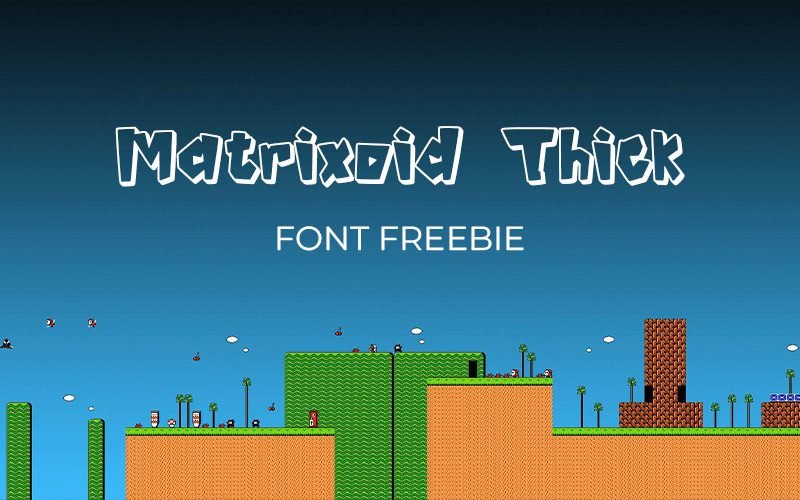
Matrixoid Thick Font Freebie
Are you working on multiple design projects that require a fun & attractive look?
Searching for the perfect font can be a daunting task for a designer. Therefore, DealFuel has brought you a Matrixoid Thick Font to create fun.
Carefully handpicked Playful font belongs to the “Matrixoid” Typeface.
Use it for social media posts, banners, thumbnails, cards & invites, and more! You can also use this for multipurpose design, combining your most original ideas to bring them to life.
Preview of Matrixoid Thick Font: